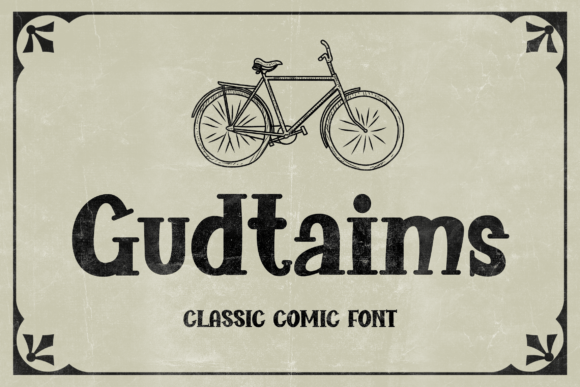
**Introducing Gudtaims: The Font That Will Make Your Creations Pop!**
Embrace the charm of yesteryear with Gudtaims, a captivating display font that exudes vintage flair. Its playful curves and retro serif style evoke a nostalgic era, adding a touch of whimsy to your designs.
**Why Choose Gudtaims?**
* **Unleash Your Inner Artist:** Gudtaims is a versatile font that lends itself effortlessly to various creative endeavors. From vintage book covers to captivating movie titles, its charm knows no bounds.
* **Capture Attention on YouTube:** Create eye-catching YouTube covers and thumbnails that will entice viewers and leave a lasting impression.
* **Elevate Your Social Media Presence:** Enhance your social media profiles with Gudtaims, transforming them into visually stunning platforms that reflect your unique style.
* **Travel Back in Time:** Experience the allure of a bygone era as Gudtaims transports you to a realm of nostalgia and retro aesthetics.
* **Make a Bold Statement:** Let your words dance with Gudtaims, conveying messages with a distinctive flair that commands attention.
**Embrace the Magic of Gudtaims Today!**
Whether you're a seasoned designer or a creative enthusiast, Gudtaims empowers you to express yourself with boundless imagination. Its vintage charm and versatility will add a touch of timeless elegance to all your creations, captivating audiences with its undeniable allure. Join the Gudtaims revolution and unlock the potential of your designs!